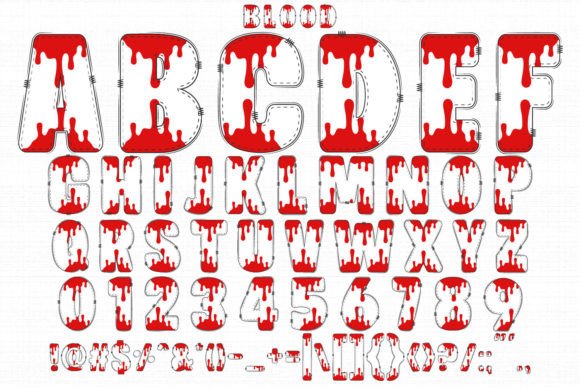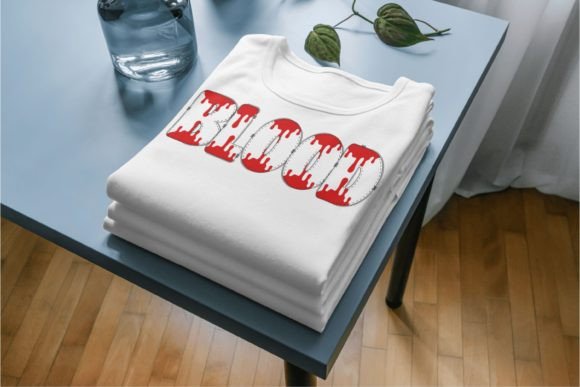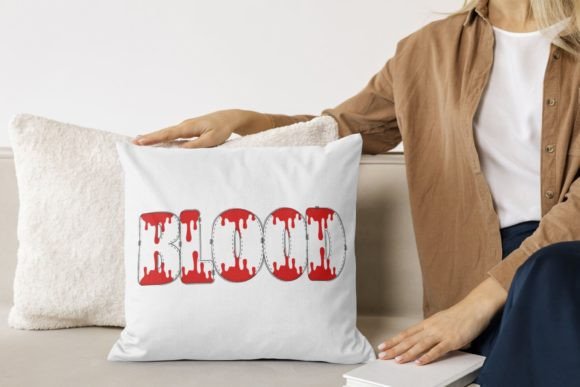
Blood Font
Blood is a decorative font with a Blood skin texture. This font is perfect for nature-themed designs and for children’s projects. No matter the topic, this font will be an incredible asset to your fonts’ library, as it has the potential to elevate any creation.